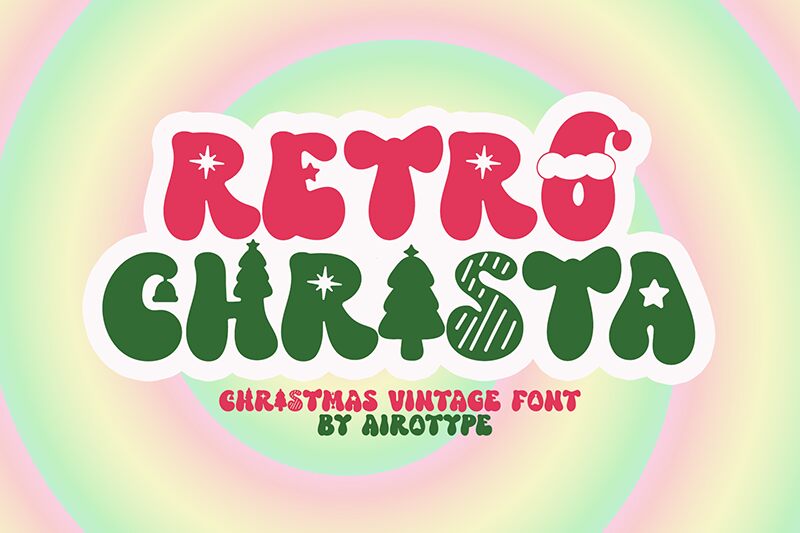
Retro Christa
Retro Christa font, a creation by Airotype Studio, brings the festive cheer of Christmas to life in a delightful bubble-like style. Decorative and bold, this free holiday-themed font has whimsical and warm elements that are retro-inspired: they are charmingly cohesive and perfect for Christmas souvenirs.